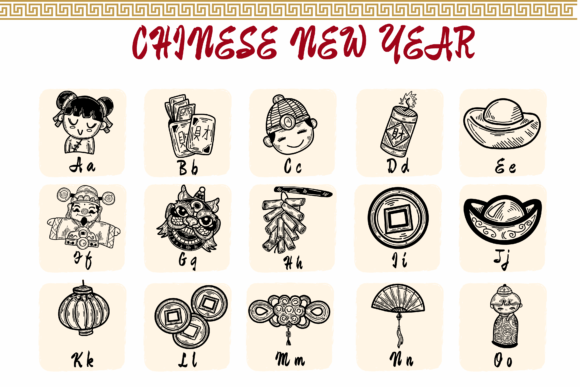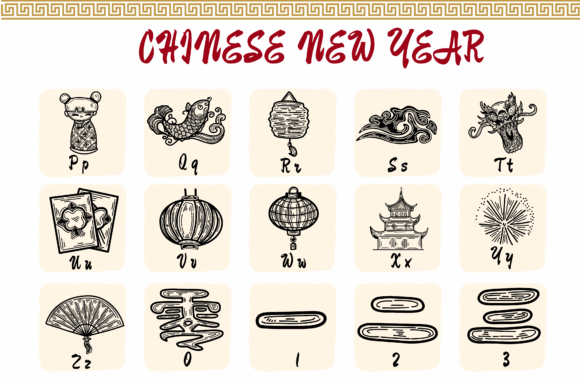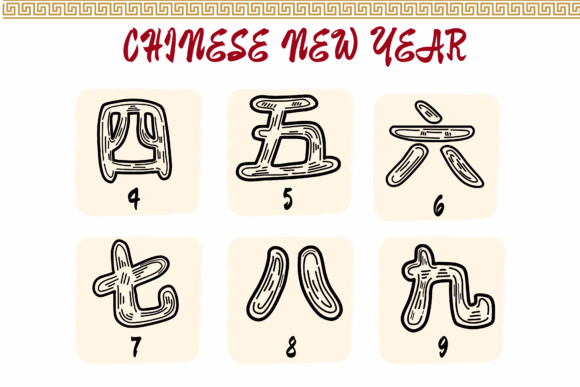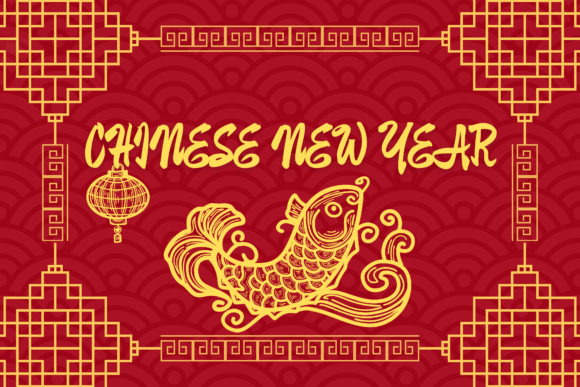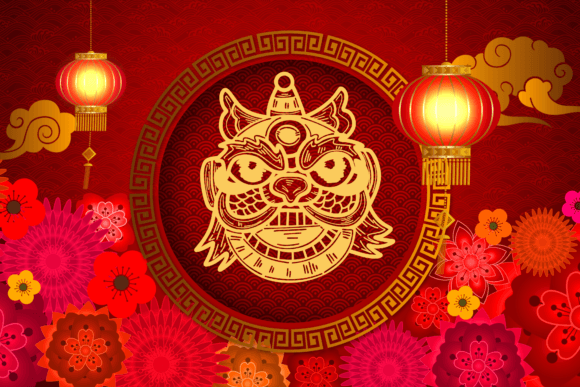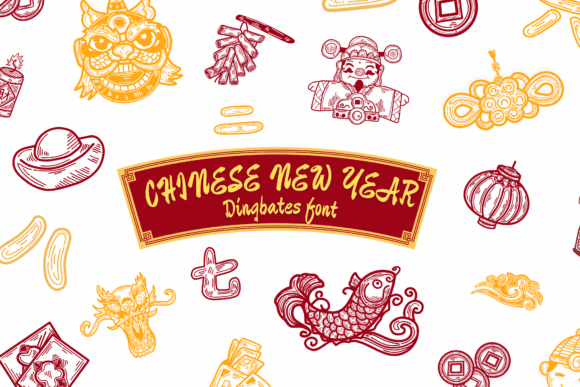
Welcoming the Chinese New Year with Vibrant Fonts and Festive Designs
The Chinese New Year, also known as Spring Festival, is a time-honored celebration that marks the beginning of a new year on the traditional Chinese calendar. It’s a period of great significance in China and is observed with great fervor and enthusiasm. As the festive season approaches, designers and crafters around the world are on the lookout for inspiration to create stunning designs that capture the essence of this joyous occasion. One of the key elements that can elevate your designs is the use of a unique and festive Chinese New Year font.
The Significance of Chinese New Year
Chinese New Year is the most important holiday in China, a time when families come together to reunite, enjoy special meals, and celebrate with fireworks and festivities. The celebration typically involves:
• Cleaning homes to sweep away bad luck and make room for good fortune
• Giving red envelopes with money to children and loved ones
• Decorating with red lanterns, dragon dances, and lucky symbols
• Enjoying traditional foods and drinks, such as dumplings and tea
The use of red and gold colors is predominant during the celebrations, symbolizing good luck, prosperity, and happiness. As a designer or crafter, incorporating these colors and festive elements into your work can make it truly special and relevant to the occasion.
Choosing the Right Chinese New Year Font
A Chinese New Year font can add a touch of authenticity and festivity to your designs. When selecting a font, consider the following factors:
• Traditional vs. Modern: Choose a font that reflects the traditional Chinese culture or opt for a modern font with a festive twist.
• Readability: Ensure that the font is easy to read, especially if you’re using it for body text or captions.
• Uniqueness: Select a font that stands out from the crowd and adds a touch of personality to your designs.
Some popular Chinese New Year fonts include:
• Kaiti: A traditional Chinese font with a elegant and cursive style.
• SimHei: A modern sans-serif font commonly used in Chinese designs.
• ZCOOL KuaiLe: A playful and festive font with a bold and colorful style.
Design Ideas for Chinese New Year
With a Chinese New Year font and a dash of creativity, you can create stunning designs that capture the essence of the celebration. Here are some ideas to get you started:
• Red Envelopes: Design custom red envelopes with a festive font and colorful graphics.
• Lanterns: Create digital lanterns with a traditional Chinese font and hang them on your website or social media profiles.
• Social Media Graphics: Design eye-catching social media graphics with a Chinese New Year font and share them with your followers.
• Illustrations: Create illustrations of traditional Chinese characters, such as the dragon or the phoenix, using a festive font.
Font Name Chinese New Year Font
The Chinese New Year is a time for celebration, creativity, and self-expression. By incorporating a Chinese New Year font into your designs, you can add a touch of authenticity and festivity to your work. Whether you’re a designer, crafter, or simply someone who loves the celebration, we hope this article has inspired you to create something truly special and memorable.